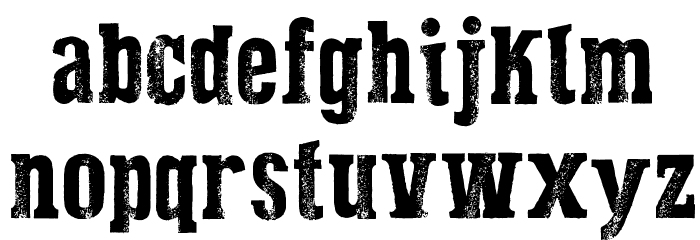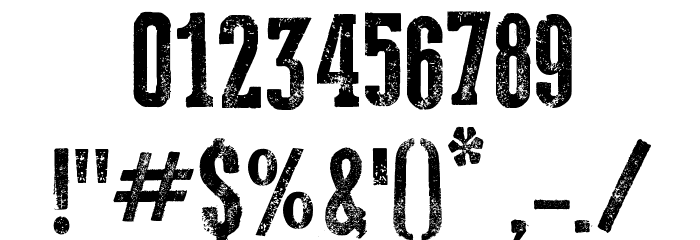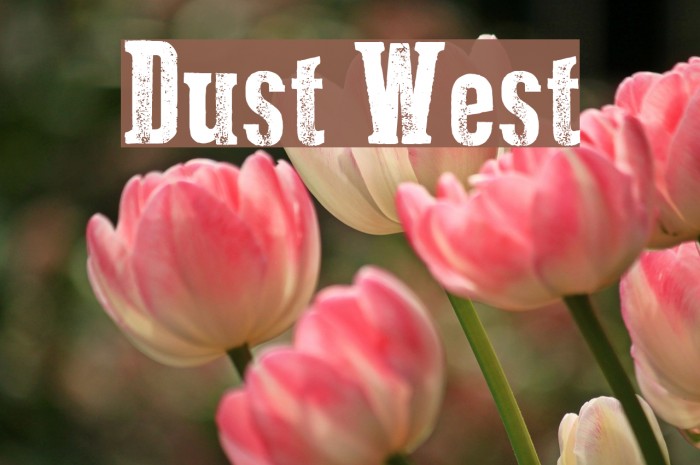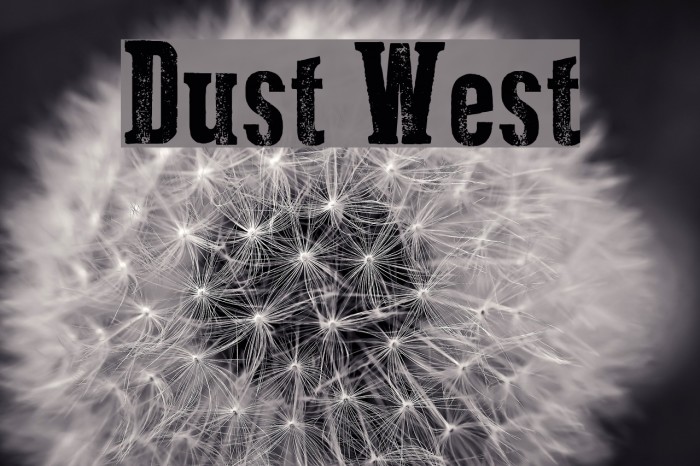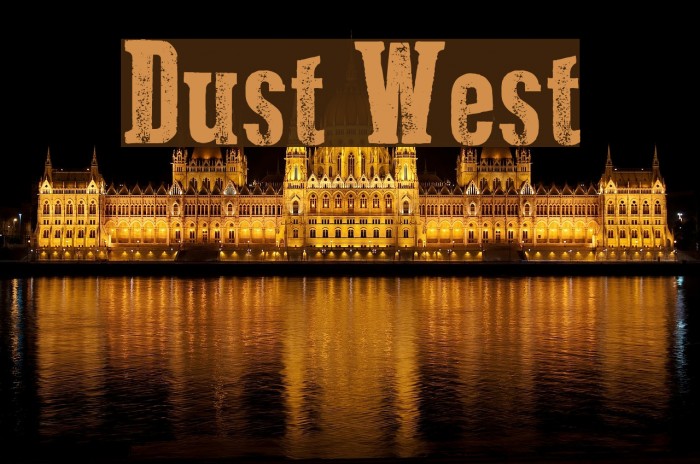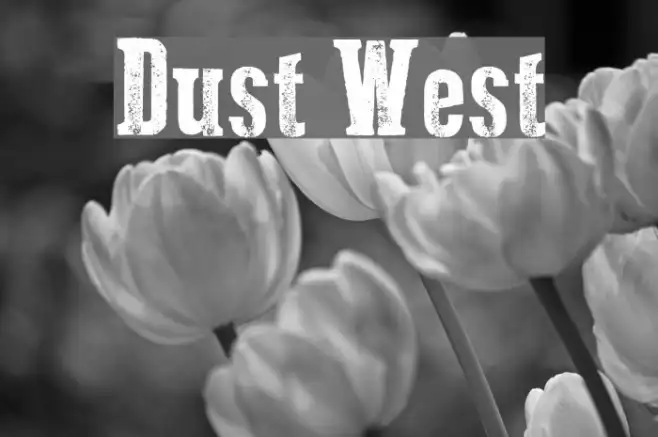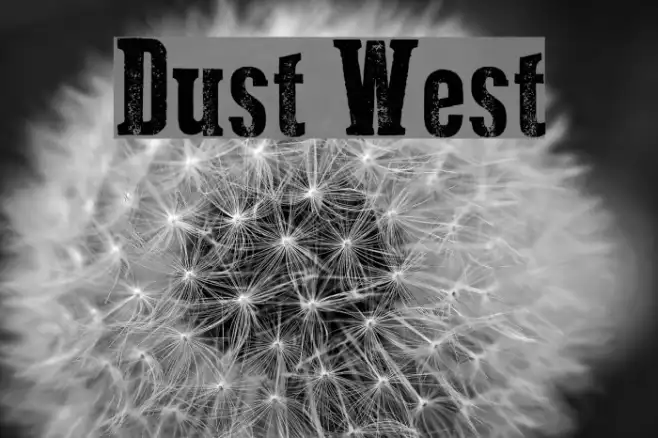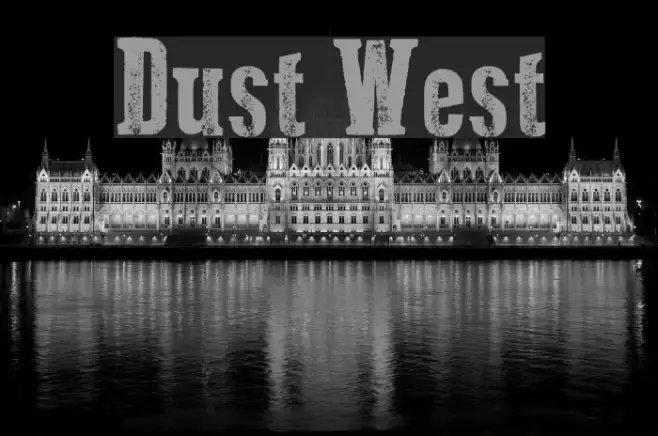
Dust West Font
This font features a rugged, distressed appearance reminiscent of old Western typography. The characters are bold and heavily textured, giving them a weathered and vintage feel. Each letter has a unique, worn-out look, adding to the overall rustic charm. The uppercase and lowercase letters maintain a consistent style, with thick strokes and slightly uneven edges. Numbers and special characters follow the same design, ensuring a cohesive look across all text elements. This font is ideal for projects that require a touch of nostalgia or a gritty, frontier aesthetic.
A bold, distressed font with a vintage Western feel.
- Proposed Projects: Ideal for posters, branding, and designs that require a rustic or vintage Western theme.
- Overall Style: Vintage